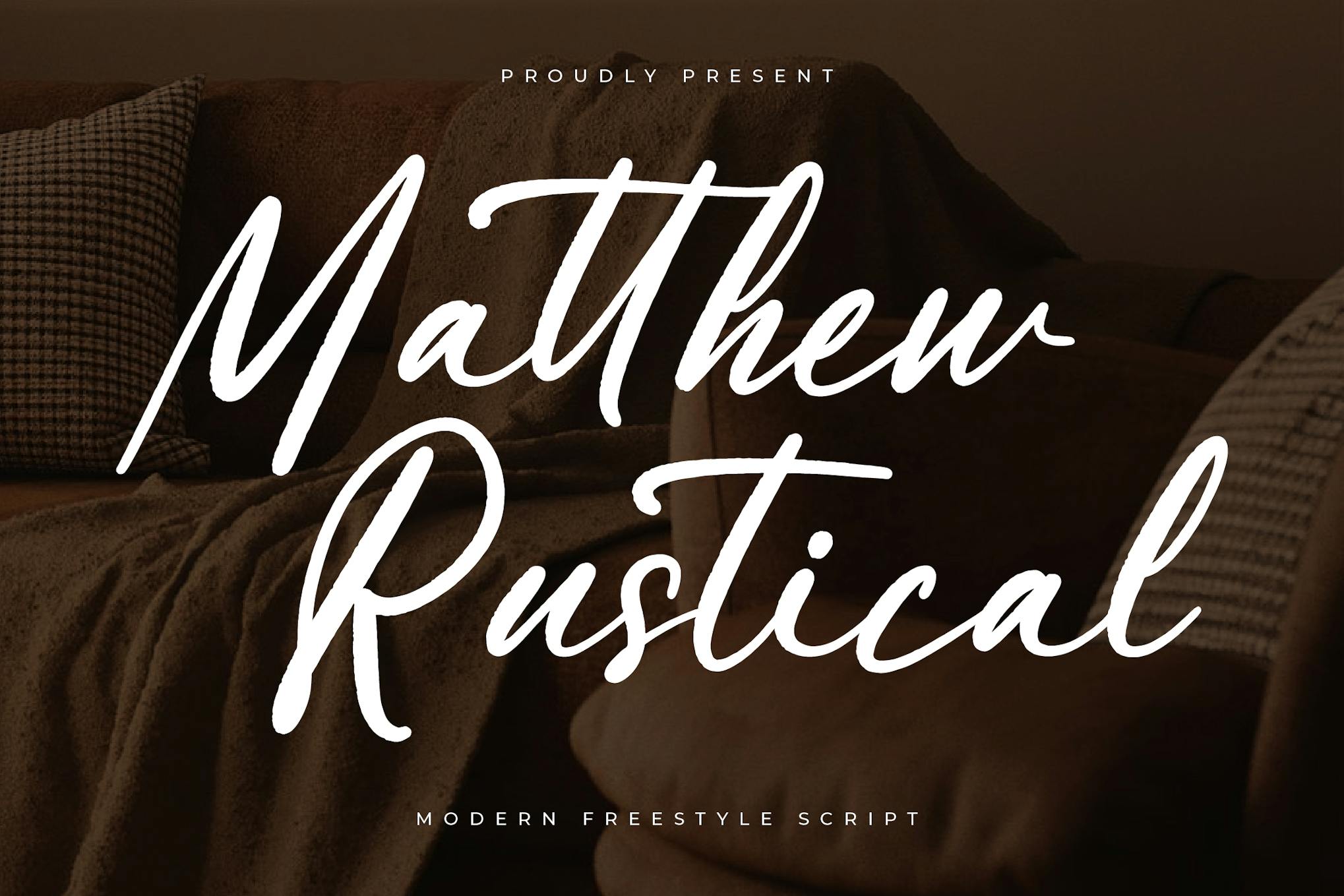
Matthew Rustical Modern Freestyle Script Font
Matthew Rustical Modern Freestyle Script Font Free Download offers a perfect blend of rustic charm and modern elegance in a flowing, handwritten style. For commercial use, you must purchase this font, but you can download it for free for testing purposes. This versatile typeface is perfect for a wide range of creative projects, including rustic wedding invitations, stylish branding, social media quotes, creative blog headers, and product packaging. What makes this font so exciting is its unique ability to combine a hand-drawn, authentic feel with a polished, contemporary elegance and a dynamic, freestyle flow. The Matthew Rustical Modern Freestyle Script font family includes a range of styles and features, such as a Regular script, a more refined Bold version, and a collection of swashes and alternates, providing a complete and flexible design solution.
This isn't just a font; it’s an artistic statement. The design of Matthew Rustical Modern Freestyle Script is inspired by a blend of authentic hand-lettering and a sophisticated, carefree aesthetic. Its distinctive, fluid strokes and natural connections between characters ensure that your headlines and titles will be both memorable and highly engaging. Whether you're a designer crafting a brand identity that needs to be chic and approachable, or a creative working on a project that adds a touch of bespoke elegance, this typeface provides the perfect foundation. The carefully crafted letterforms and authentic texture create a harmonious flow that is easy on the eyes and aesthetically pleasing in any context.
The versatility of the Matthew Rustical Modern Freestyle Script family is one of its greatest strengths. You can use the regular script for an authentic, handcrafted feel and the bold version for headlines that stand out with a confident, personal touch. The included swashes and alternates allow you to customize your text and create unique typographic compositions that feel bespoke and original. This flexibility makes it an invaluable asset for designers who need to create custom content that feels both contemporary and genuine. It's a font that works hard, delivering a look that is both stylish and full of character, ensuring your designs always make a sophisticated impression.